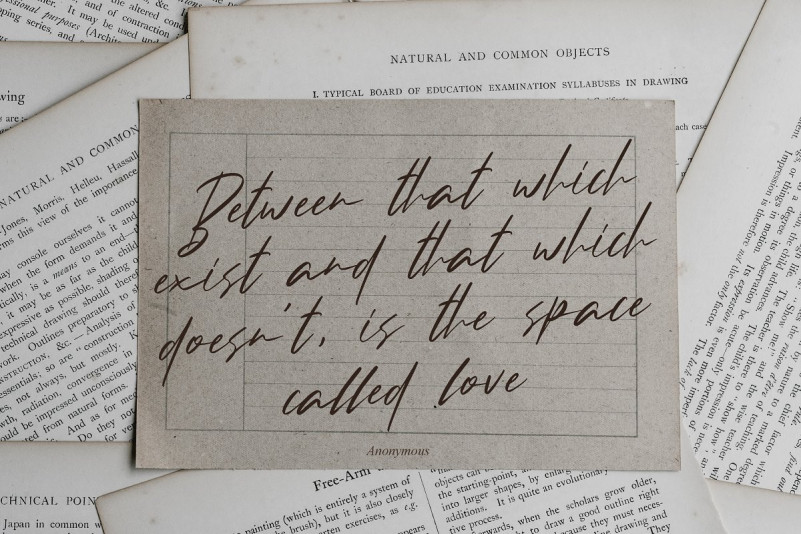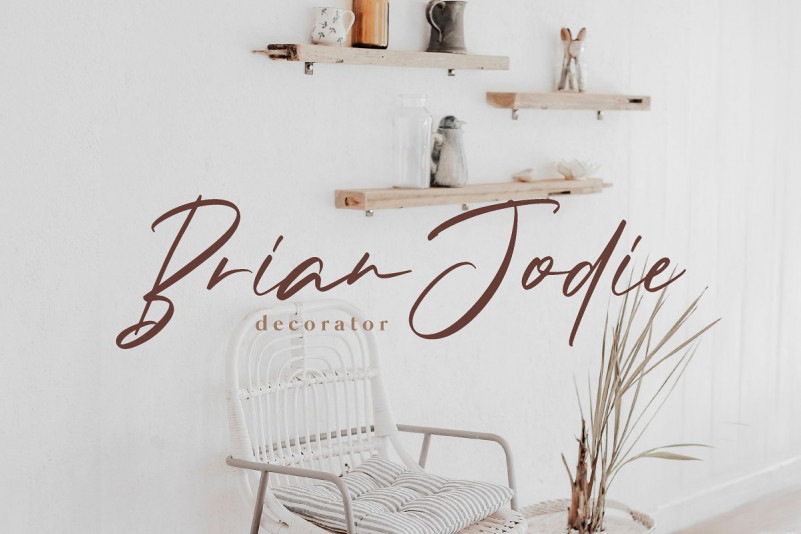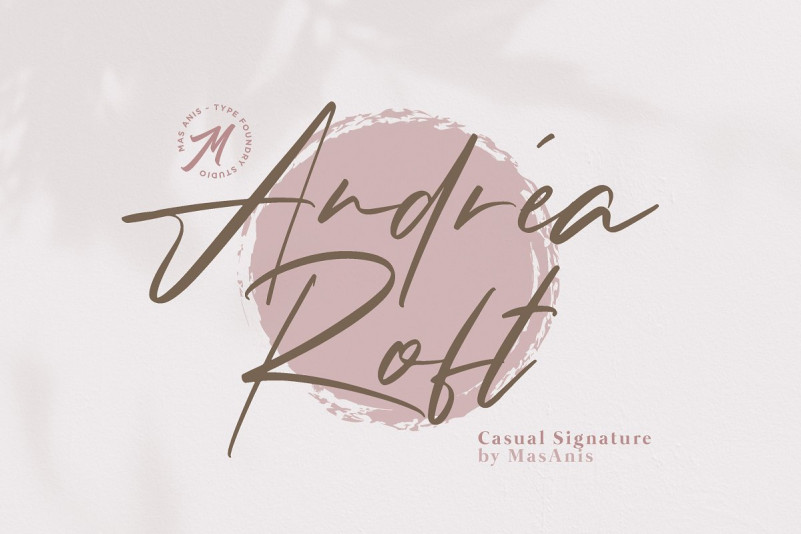
Andrea Roft Script Font
Say hello to the Andrea Roft Font! This is a casual signature font. It is slender, feminine and classy, while still maintaining a friendly feel! It is designed and shared by Mas Anis. Andrea Roft – a casual handwritten font, this font perfect for logo, invitation, stationery, wedding designs, social media posts, advertisements, product packaging, product designs, label, photography, watermark, special events or anything and fonts are provided in TTF & OTF formats.